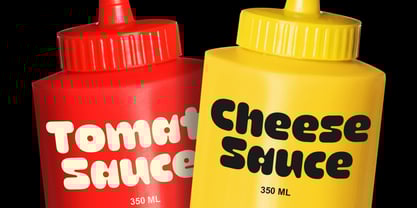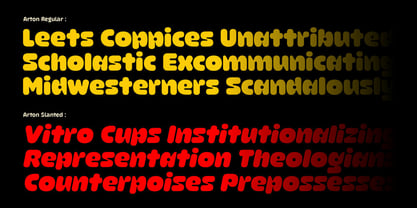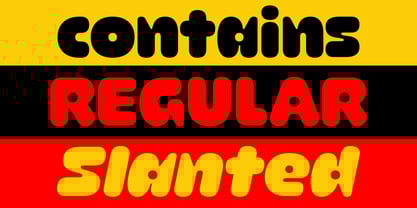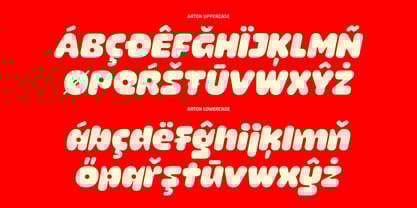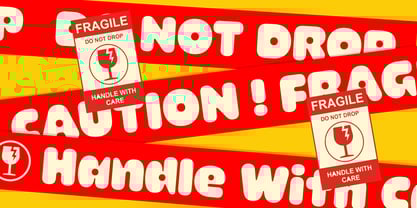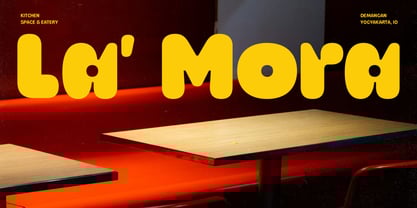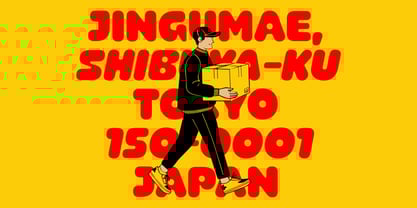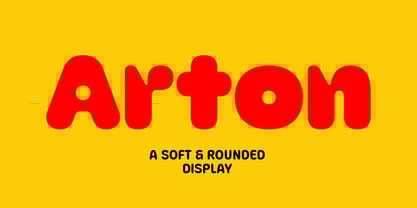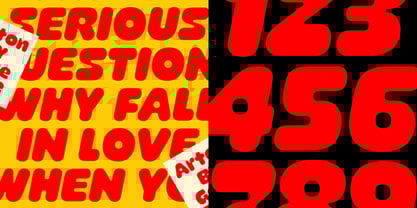
Arton
por Genetype
La familia tipográfica Arton fue diseñada por Bagus Arya Kirana y publicada por Genetype. Arton contiene 2 estilos y opciones de paquete familiar.
Arton – Rounded Playful Display Font A soft and chunky rounded display font with a friendly personality — perfect for headlines, branding, posters, packaging, and fun creative designs. Introducing Arton – Rounded Playful Display Font Arton is a bold rounded display font designed to bring warmth, fun, and personality to your typography. Its smooth curves and chunky shapes create a friendly, playful look that instantly catches attention while staying clear and readable. Perfect for branding, logos, posters, packaging, kids products, and social media graphics, Arton adds a cheerful and energetic vibe to any design. The font includes uppercase, lowercase, numerals, punctuation, and multilingual support, making it versatile for many creative projects. Whether you're creating playful branding or eye-catching headlines, Arton helps your designs stand out with a modern and friendly style.